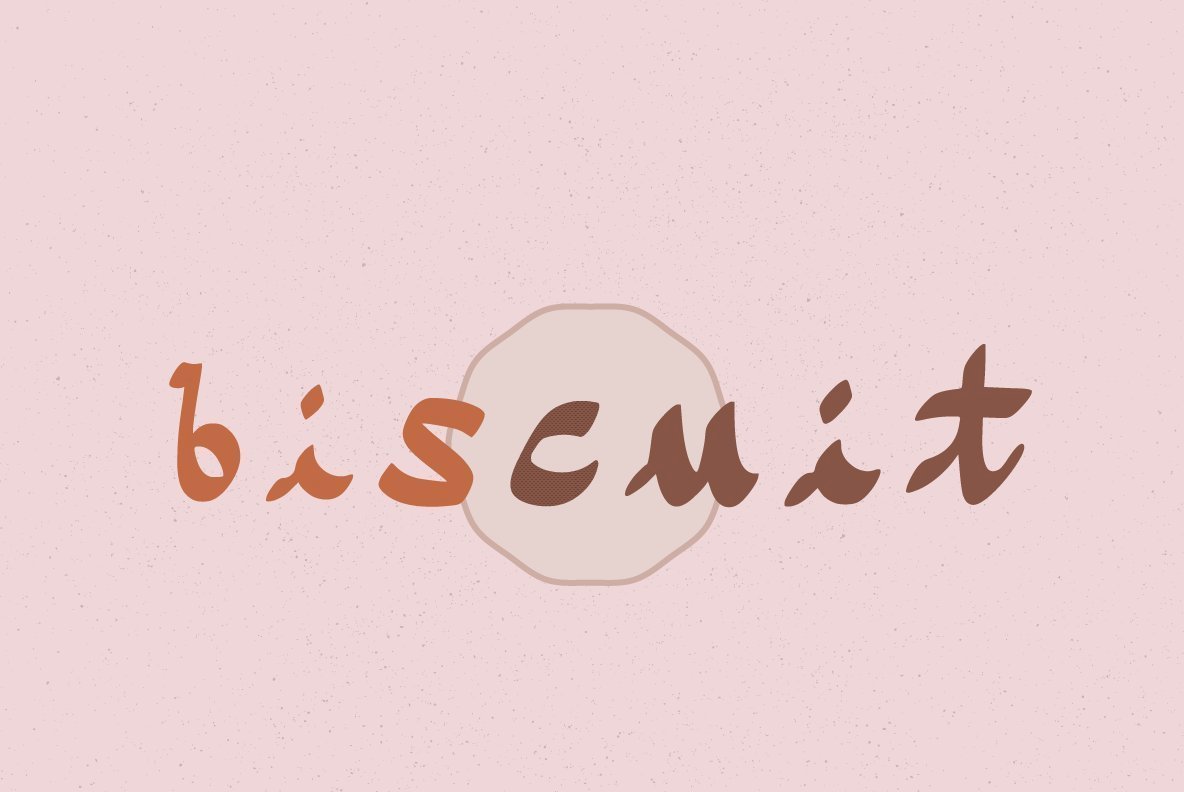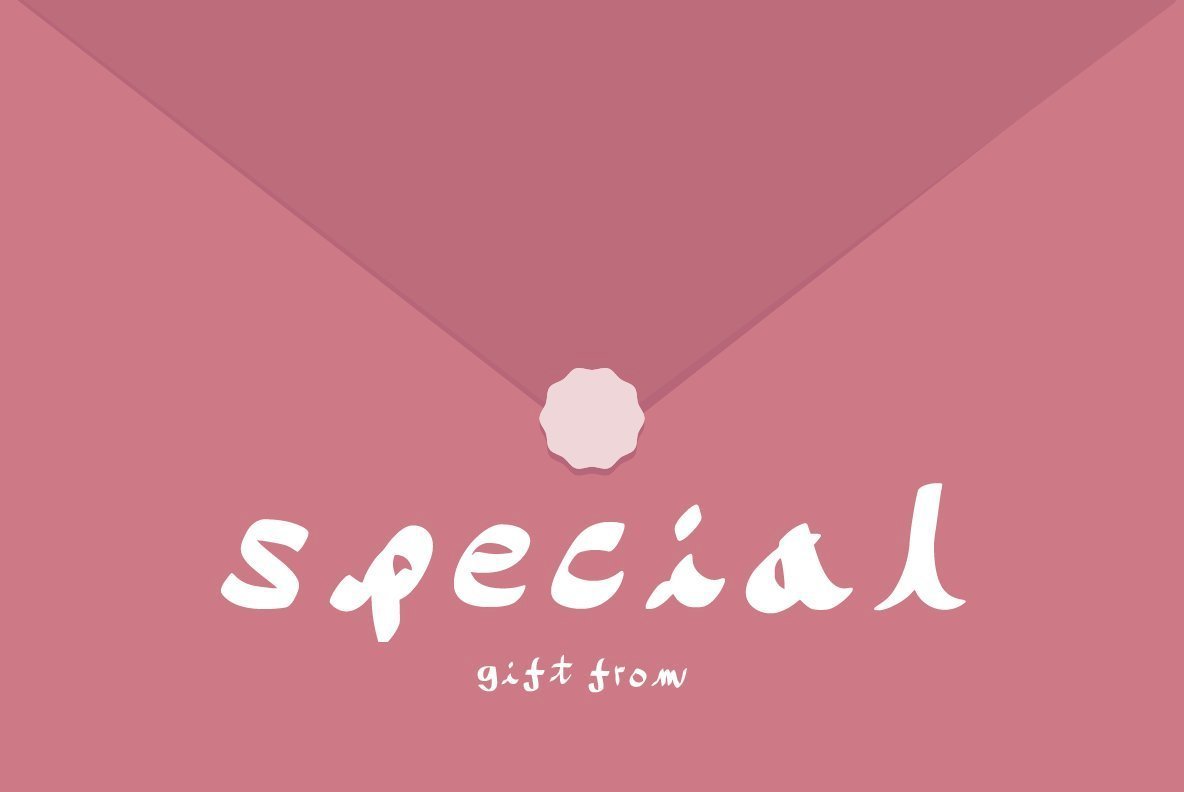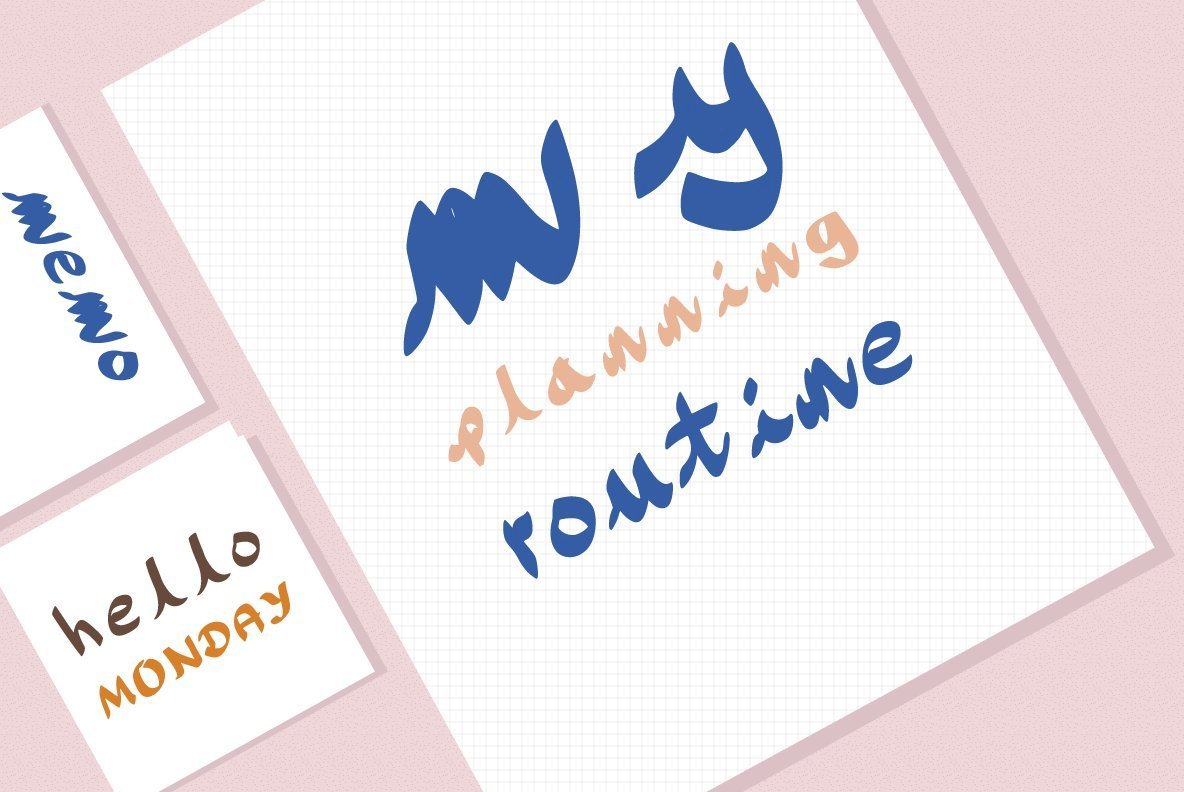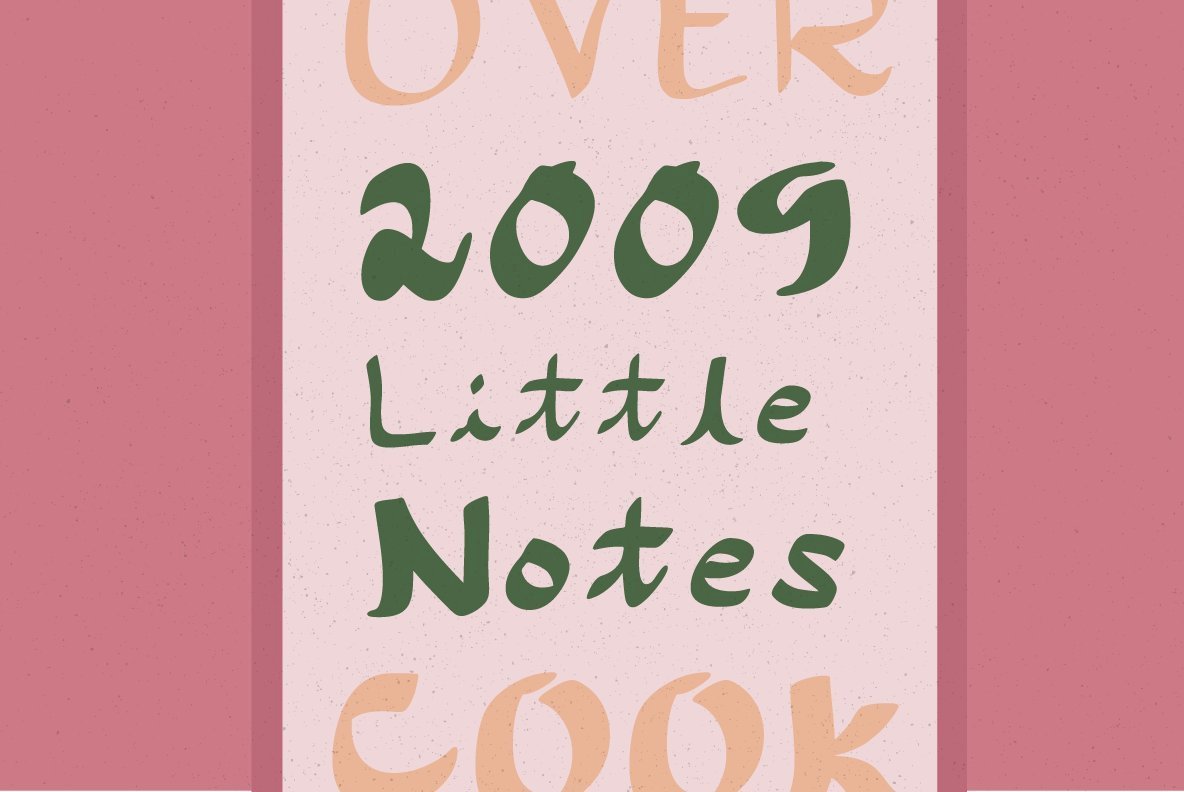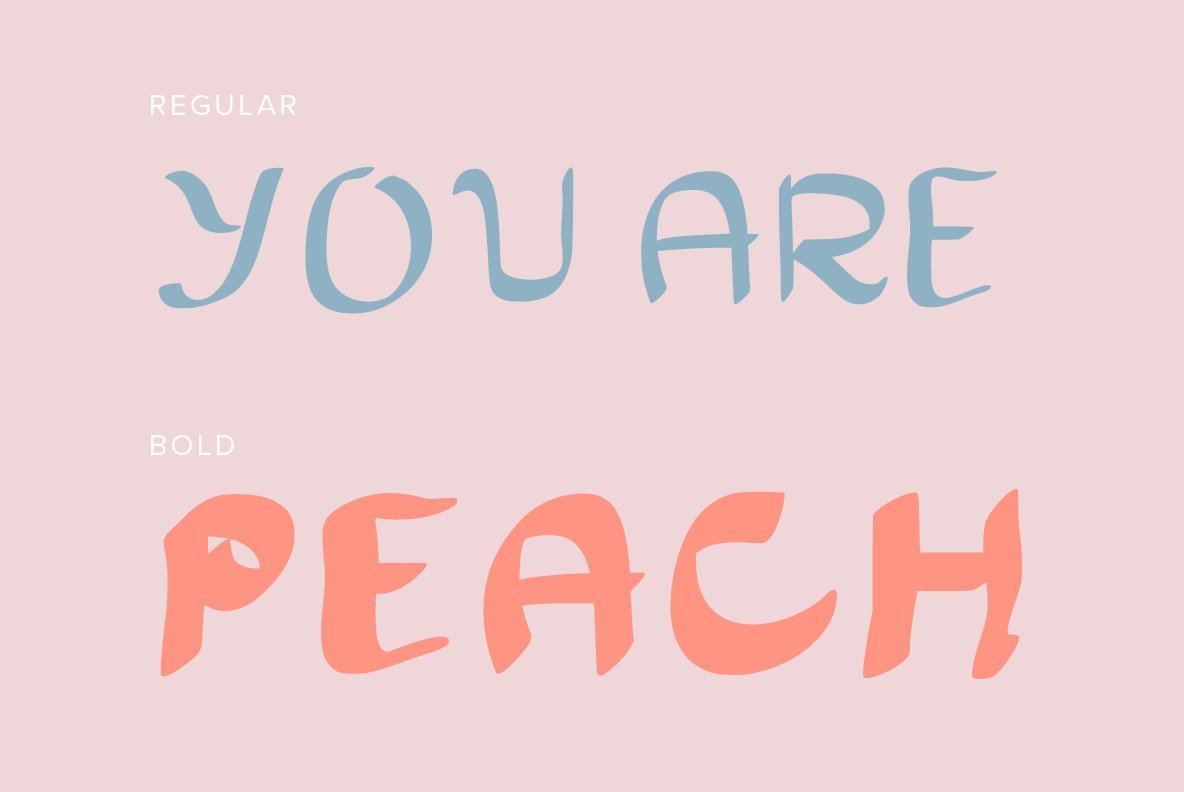
This font package contains regular and bold.
This font has a bold, script feel to it as it take inspiration to joined up writing with added tails to the end of the tops and bottom of the font. The font was created by hand with calligraphy feel to the brush. The uppercase font creates a controlled bold casual feel with emphasis on the swish on the tails while the lowercase set is very much more rushed handwritten, note taking feel so great to mix it up or use the two cases separately to create a lovely mix of styles. Includes numbers and some symbols.
This font was created by Benjamin A Melville and features a full upper and lower case alphabet including 0-9 and some punctuation, please see glyphs list for all characters you will be able to work with.